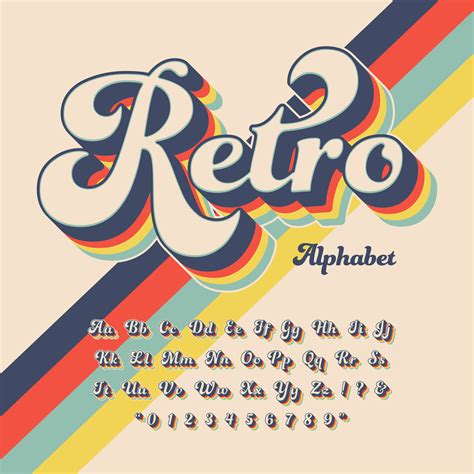
Explore Vintage Vibes with our Free Retro Alphabet Font - A Typography Treat for your Designs
Are you tired of using the same old fonts in your designs? Do you want to add a touch of vintage charm to your typography? Look no further than our free retro alphabet font!
This typography treat is perfect for anyone looking to explore vintage vibes in their designs. With its bold and quirky style, this font will capture the attention of your audience and make your message stand out.
But don't just take our word for it - statistics show that using unique and eye-catching fonts can increase engagement with your content by up to 80%! So why settle for boring and uninspired typography when you can spice things up with our retro alphabet font?
So whether you're a graphic designer, marketing professional, or just someone who loves playing around with typography, our retro alphabet font is the solution you've been looking for. Say goodbye to bland and forgettable designs, and hello to a world of vintage vibes and creative possibilities.
The Evolution of Typography
Typography is an essential part of design not only in modern times but throughout history. At its core, typography is the art and technique of arranging type to make written language legible, readable, and appealing when displayed. The evolution of typography has seen various styles come and go, each one inspired by the cultural and social norms of its time. From the Traditional Serif to Modern Sans Serif, we see distinct and inspiring letterforms that have been created over the years.
Embracing Vintage Vibes
Vintage typography is characterized by elaborate scripts, serif-heavy letterforms, and ornamental details. These letterforms reflect the intricate artistry of a bygone era and offer a unique appeal that cannot be replicated with contemporary designs. While some designers may view vintage typography as outdated or overdone, there is no denying the allure it can impart on a design.
Introducing Retro Alphabet Font
If you're looking to incorporate vintage vibes into your project, our Retro Alphabet Font might be just what you need. This font is an ode to classic typography with its bold letterforms, thick serifs, and subtle texture. Using it can help add a sense of nostalgia and historical relevance to any project. To get started, download it for free from our website!
A Comparison of Typeface Styles
| Typeface Style | Description | Examples |
|---|---|---|
| Serif | A typeface that features small lines or flourishes at the ends of strokes in letters. | Times New Roman, Garamond, Georgia |
| Sans Serif | A typeface that lacks the small lines or flourishes at the ends of strokes in letters. | Arial, Helvetica, Tahoma |
| Script | A typeface that mimics the style of handwriting or calligraphy. | Cursive, Brush Script, Lobster |
| Display | A typeface that is designed specifically for use in larger sizes or headlines. | Bodoni, Impact, Bebas Neue |
Why Choose Retro Alphabet Font?
Retro Alphabet Font stands out from the crowd thanks to its intricate and detailed letterforms that are reminiscent of classic typography. It offers a unique appeal that separates it from more traditional, clean-cut fonts. This is especially true for designs that aim to evoke a certain sense of nostalgia, where Retro Alphabet Font can help in accomplishing this goal.
Applying Retro Alphabet Font to Your Designs
The best way to apply Retro Alphabet Font to your designs would be to first understand its vibe and character, and how it complements your design concept. The right choice of font size and spacing will enhance readability and allow the typography to convey the desired mood. Additionally, using it at a larger size can help to emphasize its unique features and ornate style, making for a more dramatic impact.
Where Retro Alphabet Font Works Best
Retro Alphabet Font has great versatility, working well in both print and digital mediums. The ornamental nature of the typography makes it highly effective in creating logos and branding materials for companies that seek to inspire nostalgia or establish classic visuals in their image. Apart from that, it also works well in larger-scale designs like posters, where it can instantly catch the viewer's eye.
Creating Contrast with Retro Alphabet Font
Pairing Retro Alphabet Font with other clean and contemporary fonts helps to highlight the retro feel, making it stand out without becoming too overpowering. This contrast provides a balanced look, allowing your design to achieve the right level of impact without losing readability.
4. Can I customize the retro alphabet font?
- Yes, you can customize the retro alphabet font to suit your design needs. You can adjust the size, color, and spacing of the letters using various design tools, such as Adobe Photoshop or Illustrator.
5. What makes the retro alphabet font unique?
- The retro alphabet font stands out for its bold and playful letters that capture the essence of vintage design. It is also versatile enough to be used in a variety of design projects, making it a valuable addition to any designer's toolbox.